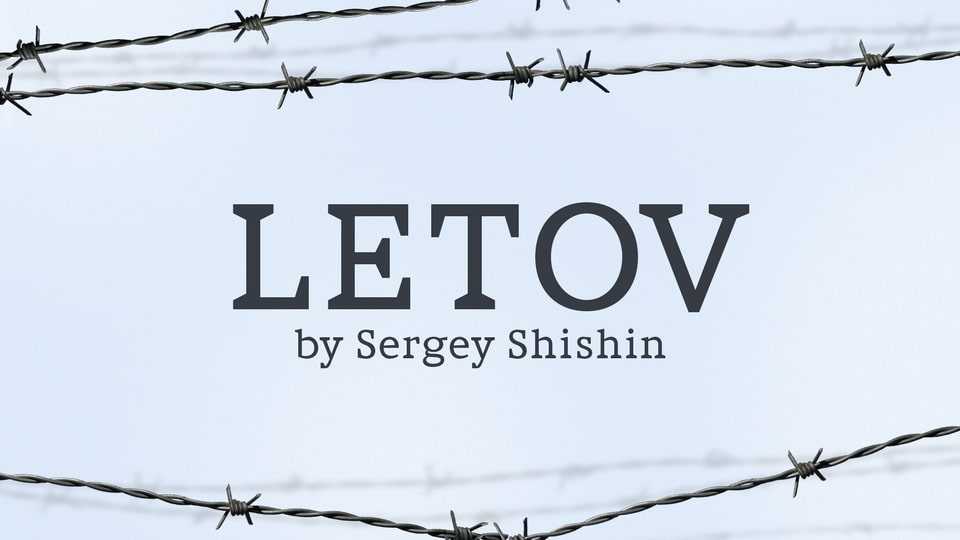
Download Letov font, a contemporary Russian punk Antiqua. Letov font performs two tasks: maximum readability at small sizes and maximum expressiveness at large sizes.
Designer: Sergey Shishin